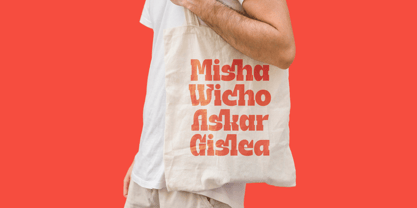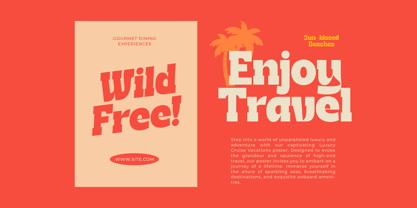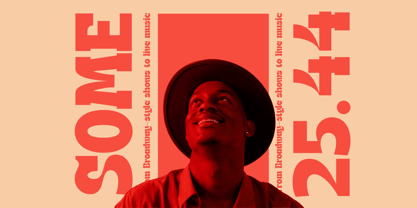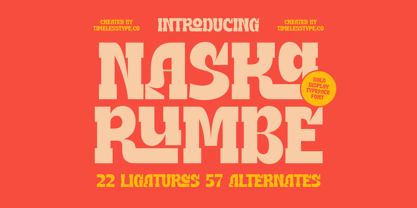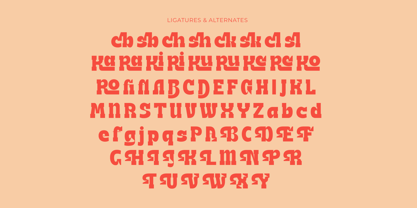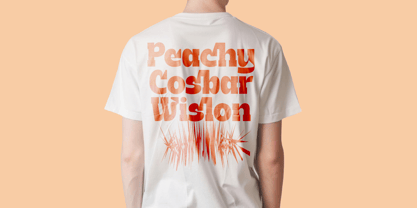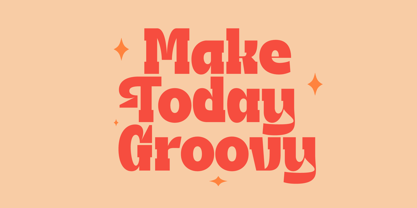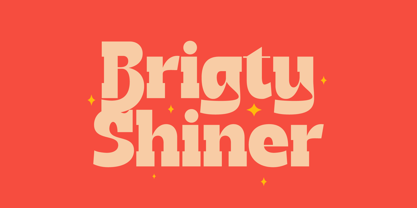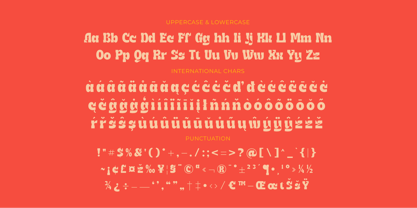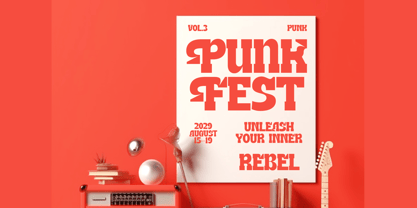
Naska Rumbe
por Timelesstype Studio
A família de fontes Naska Rumbe foi desenhada por Heru Utama Putra e publicada pela Timelesstype Studio. Naska Rumbe contém 2 estilos e opções de pacote familiar.
Naska Rumbe - Bold Display Font , from Timelesstype, Suitable for any projects such as: logos, branding projects, homeware designs, product packaging, mugs, quotes, posters, shopping bags, t-shirts, book covers, name card, invitation cards, greeting cards, label, photography, watermark, special events, and all your other luxury and beautiful projects that need a Luxury Serif taste.